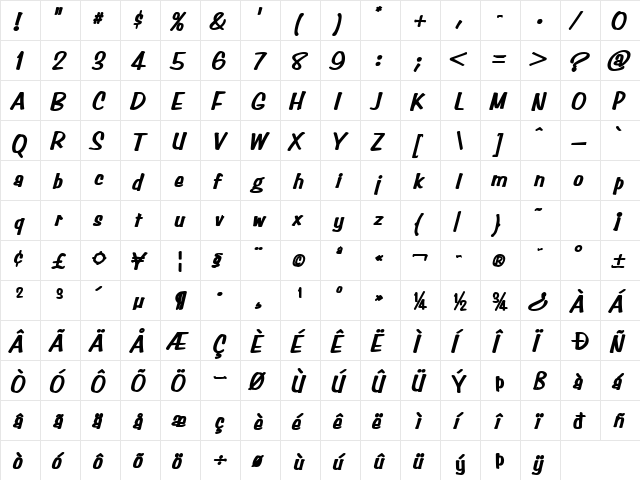
Simpson Heavy BoldItalic
Design Context for Simpson Heavy Typeface
Simpson Heavy offers clean, dependable letterforms without strong stylistic allegiance, making it a practical choice for designers who need flexibility. The dynamic lean of this cut emphasises speed and emphasis in any layout. The heavy weight commands attention and anchors typographic hierarchies.
Pro Tip: Use Simpson Heavy for emphasis, pull quotes, and subheadings where its slanted energy can add rhythm to the layout.